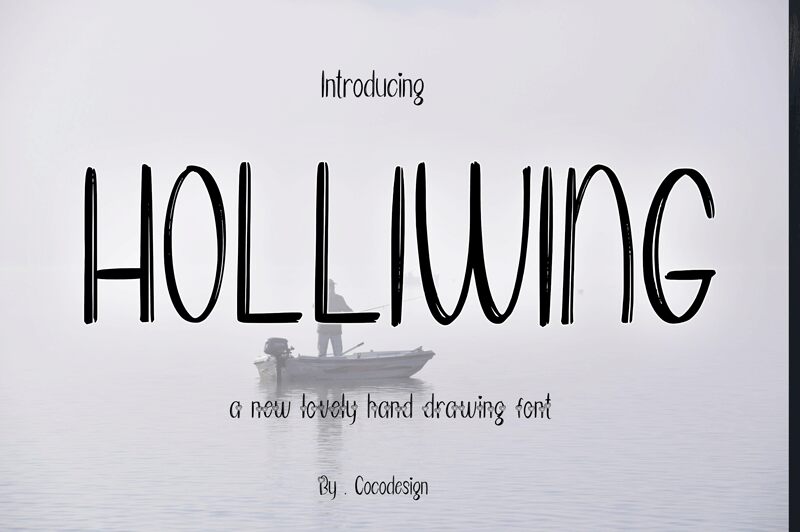
Holliwing font by Coco Design is a free brush typeface that embodies an organic hand-drawn appearance in its letter designs. Marked by an informal character, the font’s appearance is friendly, casual, artistic, and versatile. It is capable of presenting a contemporary look, enhancing its appeal and usage in modern applications and creative designs.
Holliwing is a whimsical and approachable font that easily catches the eye of whoever is viewing it and can help deliver great attention to your project. Explore a new direction in your business cards, packaging and branding with your product and company’s logo design and entrance signs. New possible directions can be taken while designing posters, banners, magazine covers, websites, and applications.